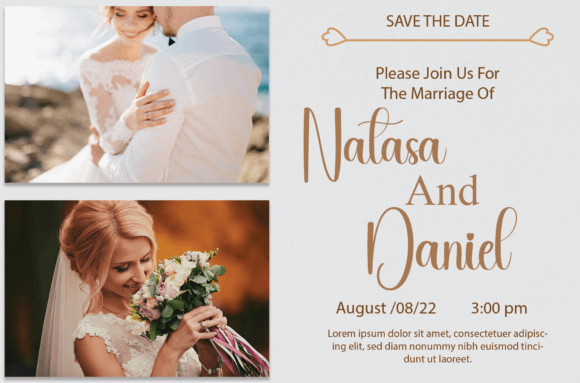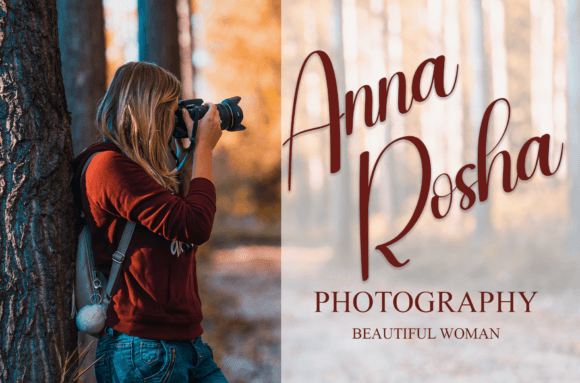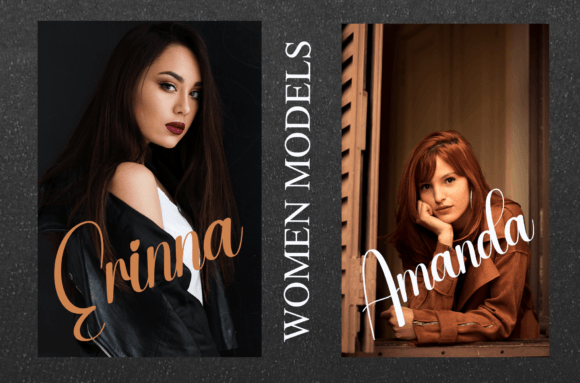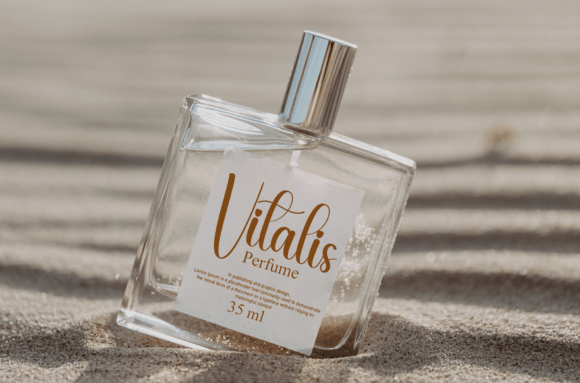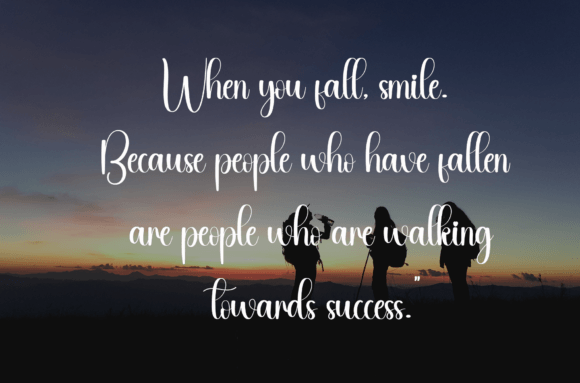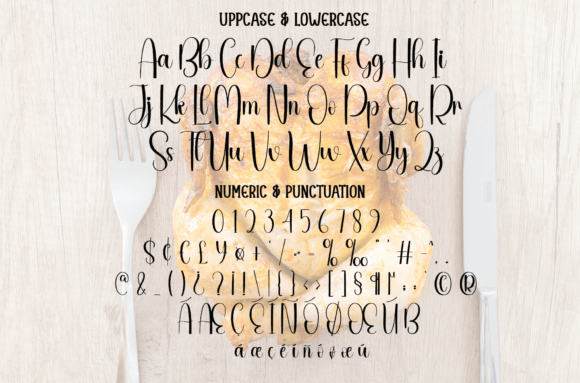
The Sweet Charm of Butter Chicken Font: A Designer’s Delight
I’ll never forget the time I was working on a wedding invitation project, and my client asked for a font that was “fun, yet elegant.” I scoured the internet, trying out font after font, but nothing seemed to fit the bill. That was until I stumbled upon Butter Chicken Font. This sweet and friendly handwritten font has been a game-changer for my designs, and I’m excited to share its charm with you.
So, what makes Butter Chicken Font so special? Here are a few things I love:
• ✨ Fresh and neat: This font is perfect for designs that need a touch of whimsy and playfulness.
• ✅ Wedding-ready: With its elegant and sophisticated feel, Butter Chicken Font is ideal for wedding invitations, cards, and other stationery.
• 💕 Friendly vibes: This font exudes warmth and approachability, making it perfect for designs that need a personal touch.
Of course, no font is perfect, and Butter Chicken Font has a few quirks:
• 🤔 Limited character set: While the font has a wide range of characters, it may not have every special character or glyph you need.
• ⚠️ Not suitable for body text: Due to its decorative nature, Butter Chicken Font is best used for headings, titles, or short paragraphs.
The Story Behind Butter Chicken Font
Butter Chicken Font was designed by a talented typographer who wanted to create a font that was both elegant and playful. Inspired by the sweetness of handwritten scripts, this font is perfect for designs that need a touch of whimsy and charm.
Q: Is Butter Chicken Font suitable for body text?
A: No, due to its decorative nature, Butter Chicken Font is best used for headings, titles, or short paragraphs.
Q: Does Butter Chicken Font have a wide range of characters?
A: While Butter Chicken Font has a wide range of characters, it may not have every special character or glyph you need.